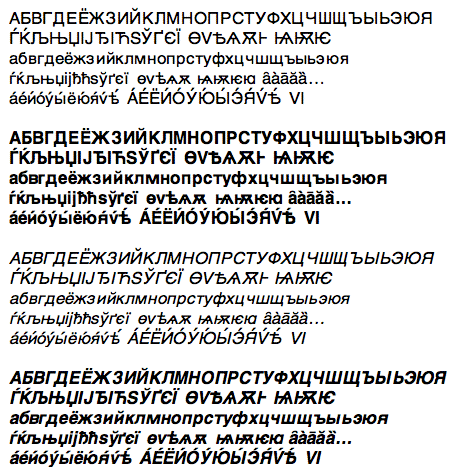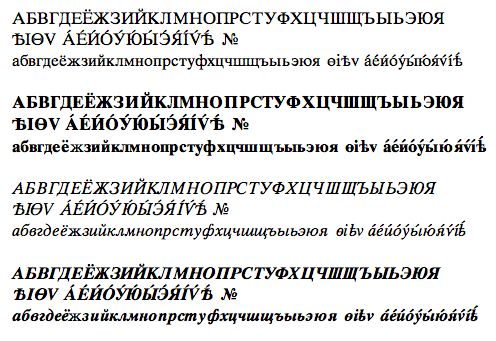
Scientific Cyrillic series -- special features:
- Standard orthography plus
- Old characters plus
- Medieval characters plus
- Accented vowels!
MosFont 37: Moskva Dot (Cyrillic with dot accent below)
MosFont 38: Moscow Transit (Automatic Transliteration)
MosFont 39: Scientific Small Caps: RomanCyrillic SC & TAccents SC (plain)
Features: Cyrillic fonts for slavists; THE standard in scientific publishing in Europe